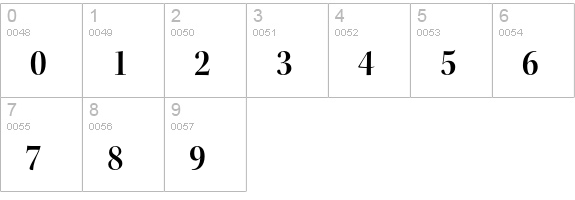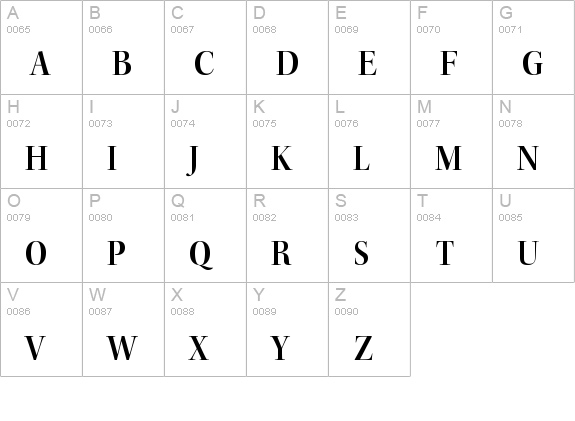
Kepler Std Semibold Semicondensed Display Font Details
Kepler Std Semibold Semicondensed Display is a sub-bold, structured variant in the Kepler typeface family \xE2\x80\x94 well suited to sub-headlines and emphasised passages.
The Kepler Std Semibold Semicondensed Display font is a strikingly bold and versatile typeface that commands attention with its strong presence and distinct character. This font is perfect for headlines, titles, and any design project that requires a powerful and impactful visual impact. With its semi-condensed proportions, the Kepler Std Semibold Semicondensed Display font offers a unique balance between space-saving efficiency and legibility. Its slightly condensed form allows for more text to be displayed in a limited space without sacrificing readability, making it an ideal choice for posters, banners, and other large-scale designs. What sets the Kepler Std Semibold Semicondensed Display font apart is its combination of boldness and sophistication. The semi-bold weight adds a touch of elegance and refinement to any design, while its sturdy and confident appearance ensures that your message will be conveyed with utmost clarity and impact. And the best part? The Kepler Std Semibold Semicondensed Display font is available for free download at FontsMarket.com. This means that you can easily access and utilize this fantastic typeface without any cost, making it an excellent choice for both personal and commercial projects. So, whether you're working on a bold and eye-catching headline or a sleek and modern branding design, the Kepler Std Semibold Semicondensed Display font is your go-to typeface. Download it now for free at FontsMarket.com and elevate your designs to new heights of style and professionalism.